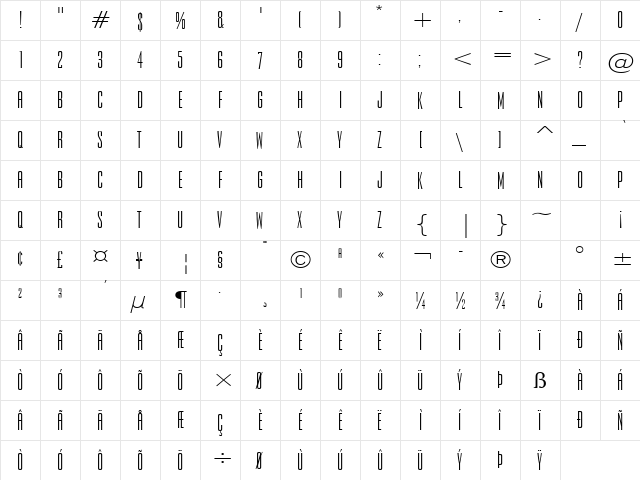
Expel Wide Normal
Design Context for Expel Wide Typeface
Expel Wide offers clean, dependable letterforms without strong stylistic allegiance, making it a practical choice for designers who need flexibility.